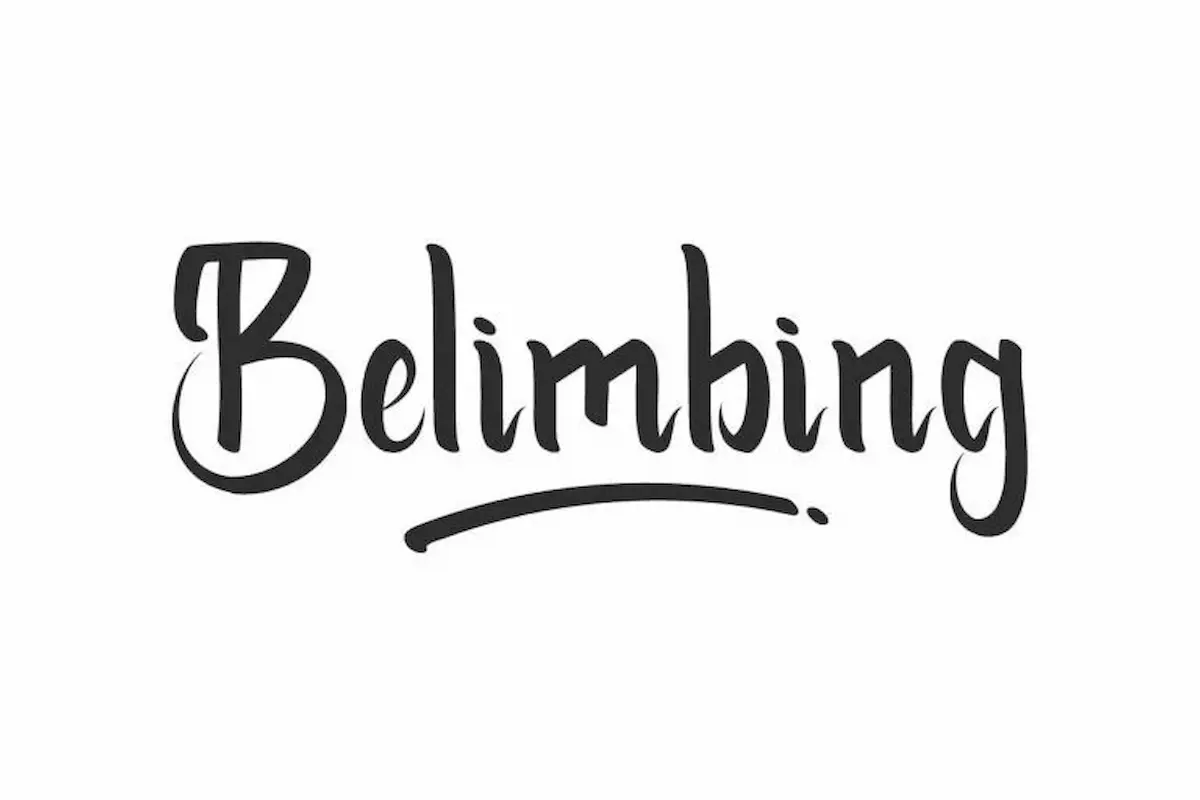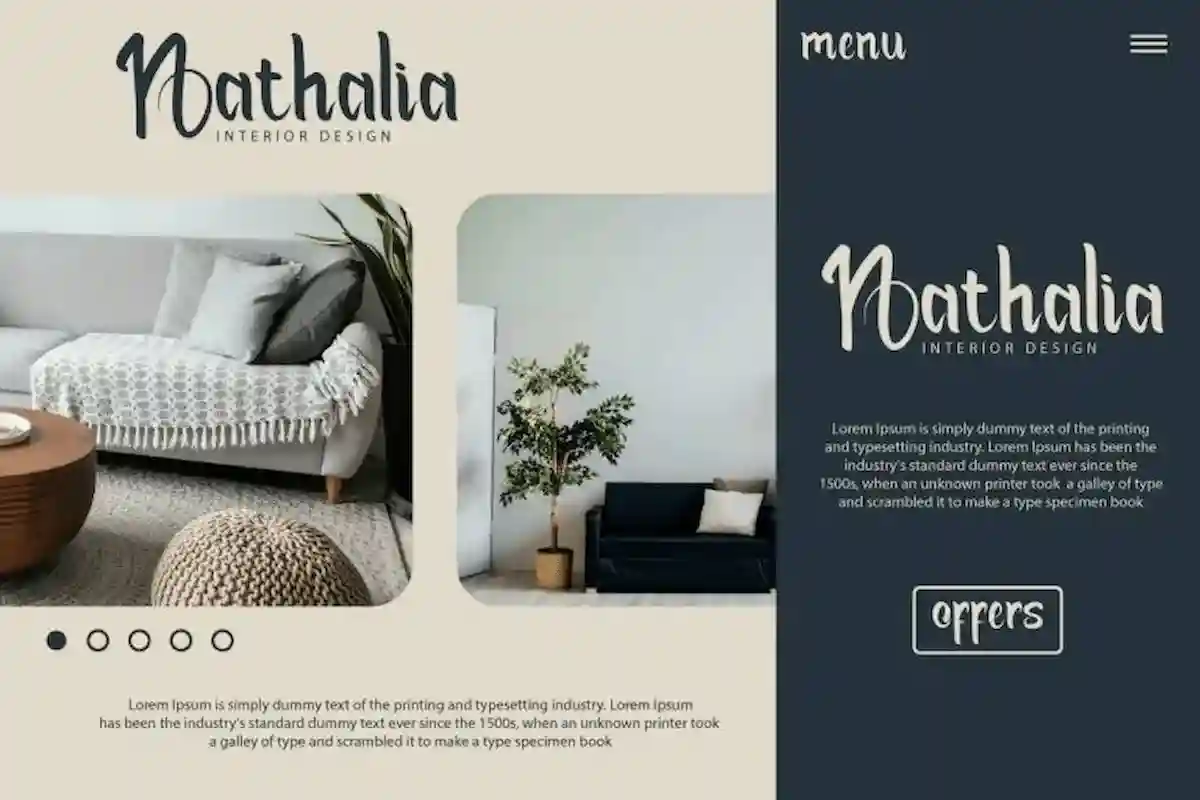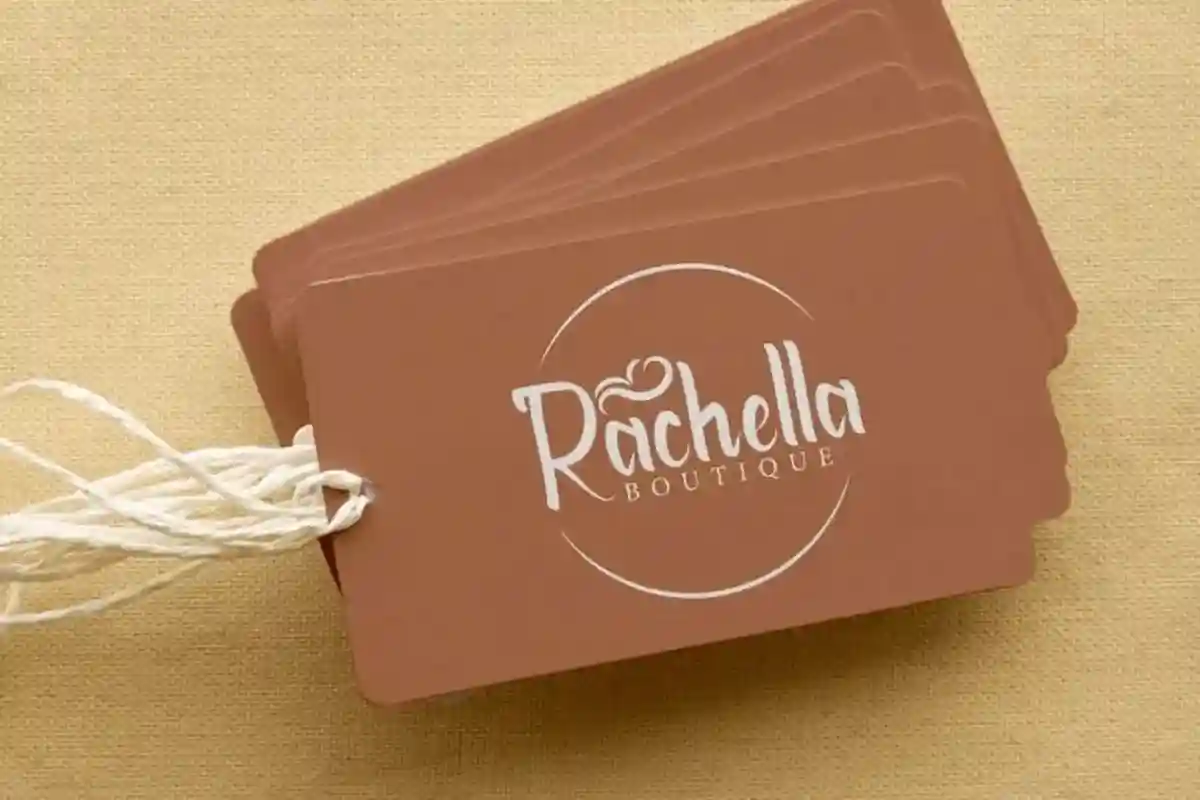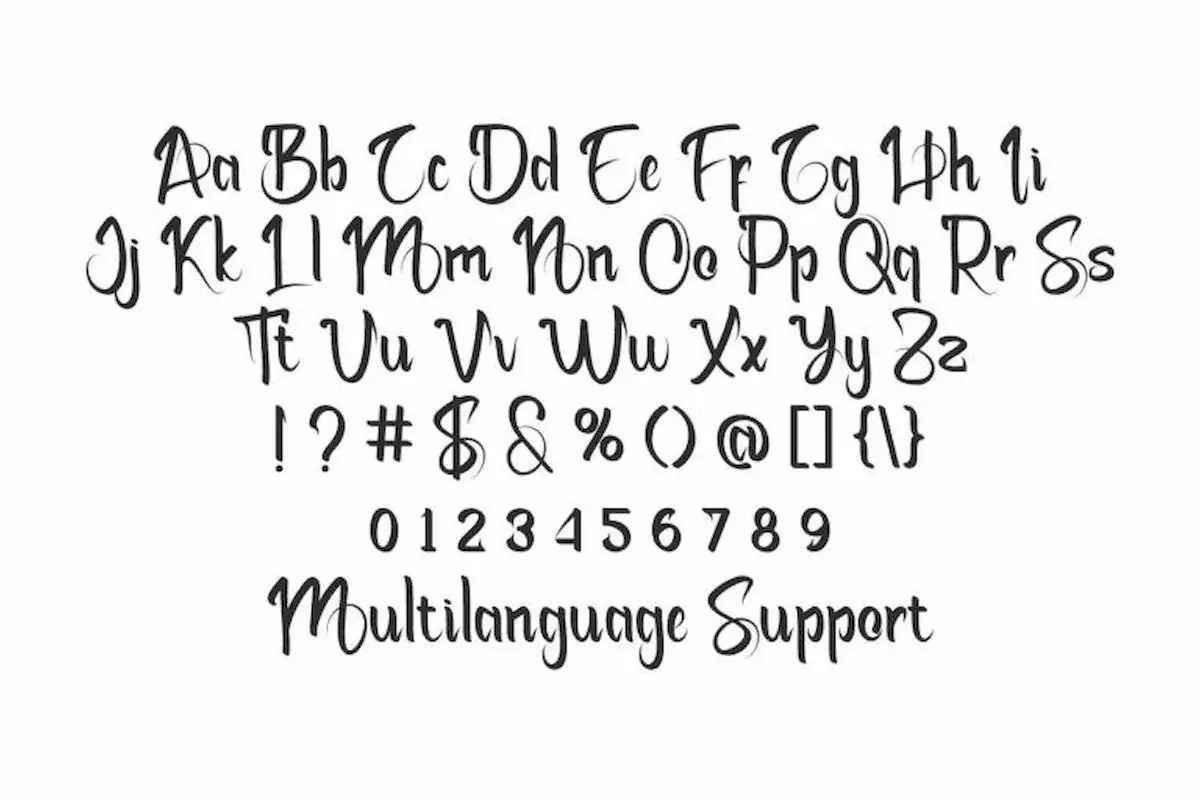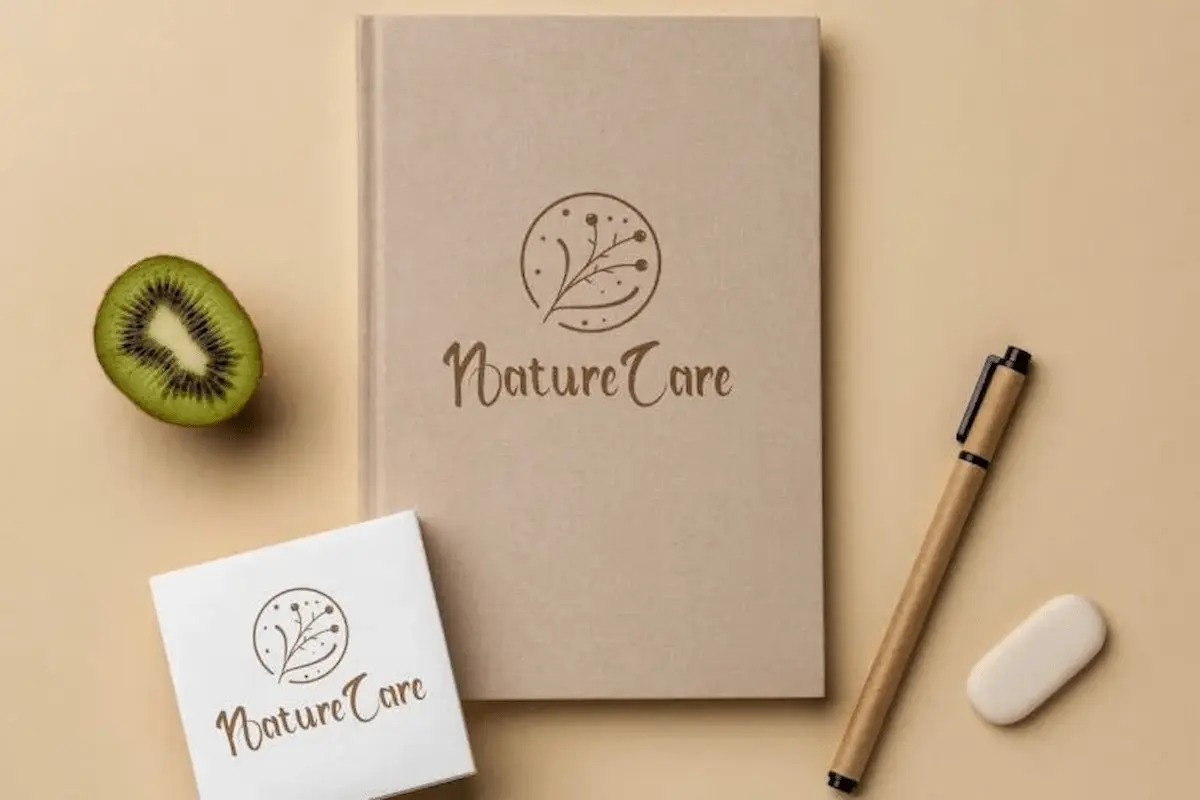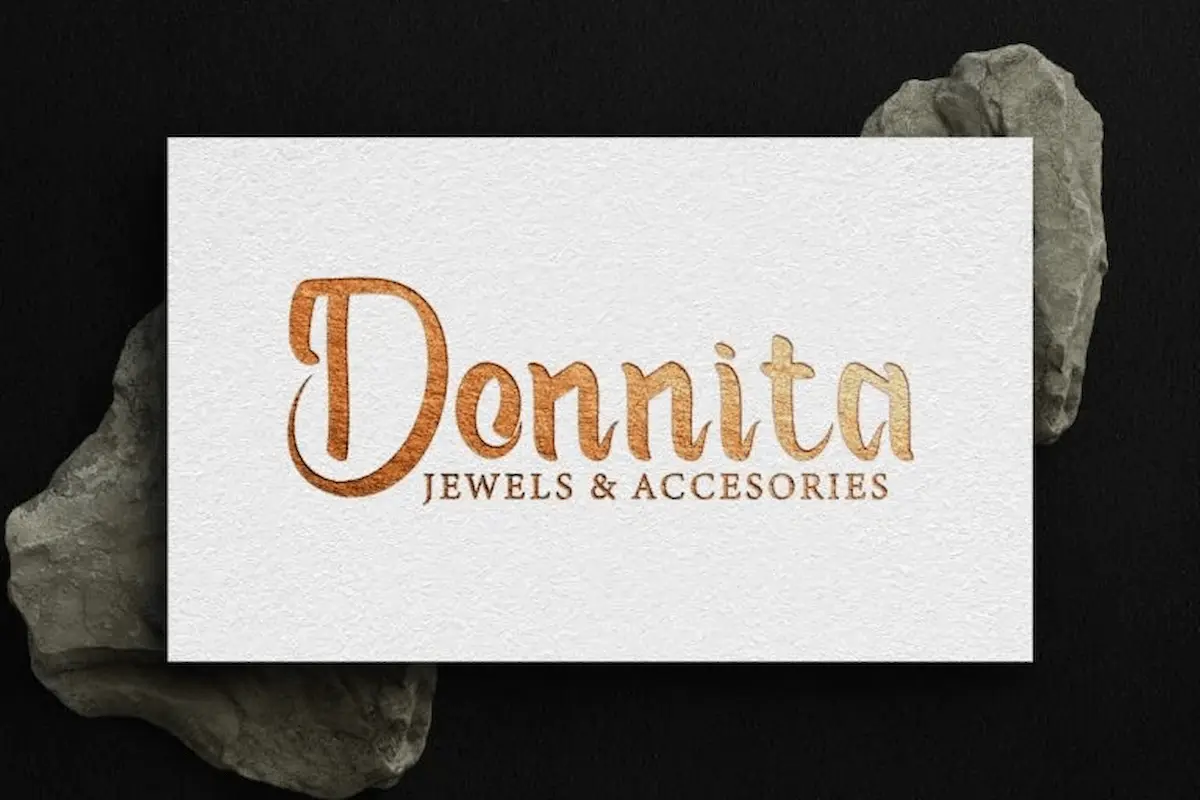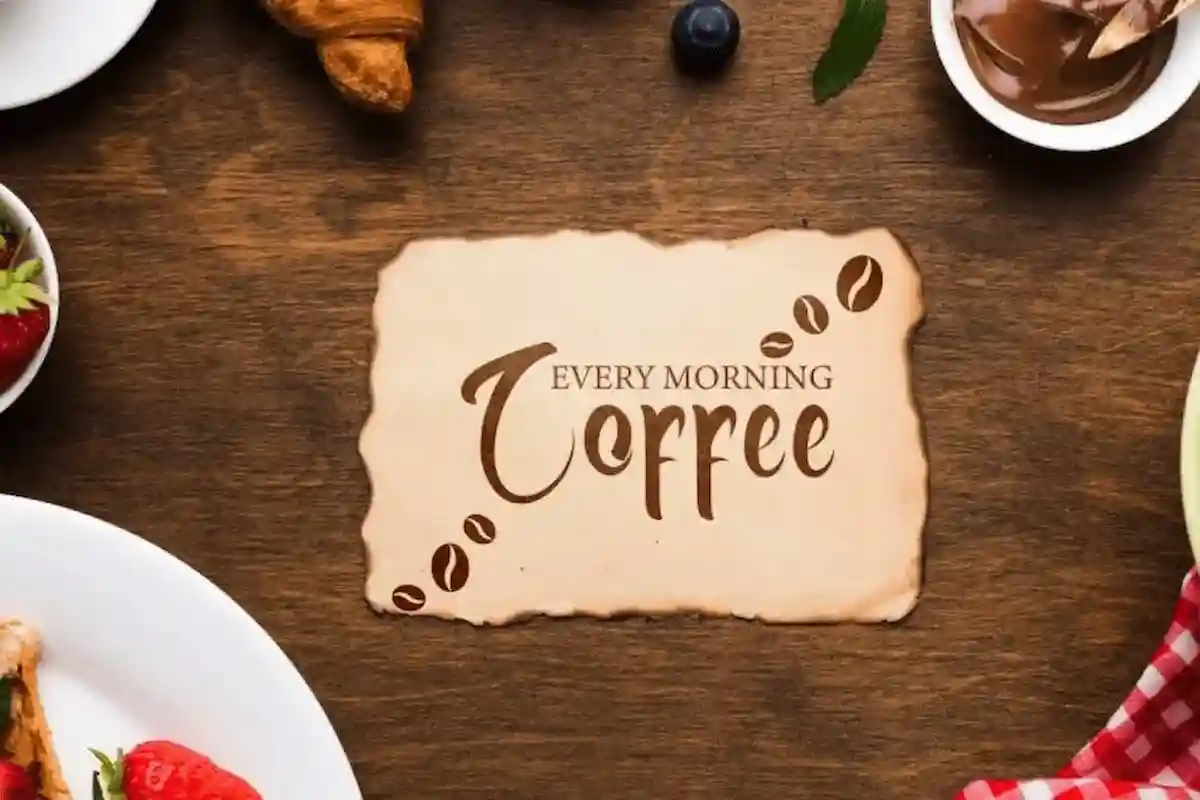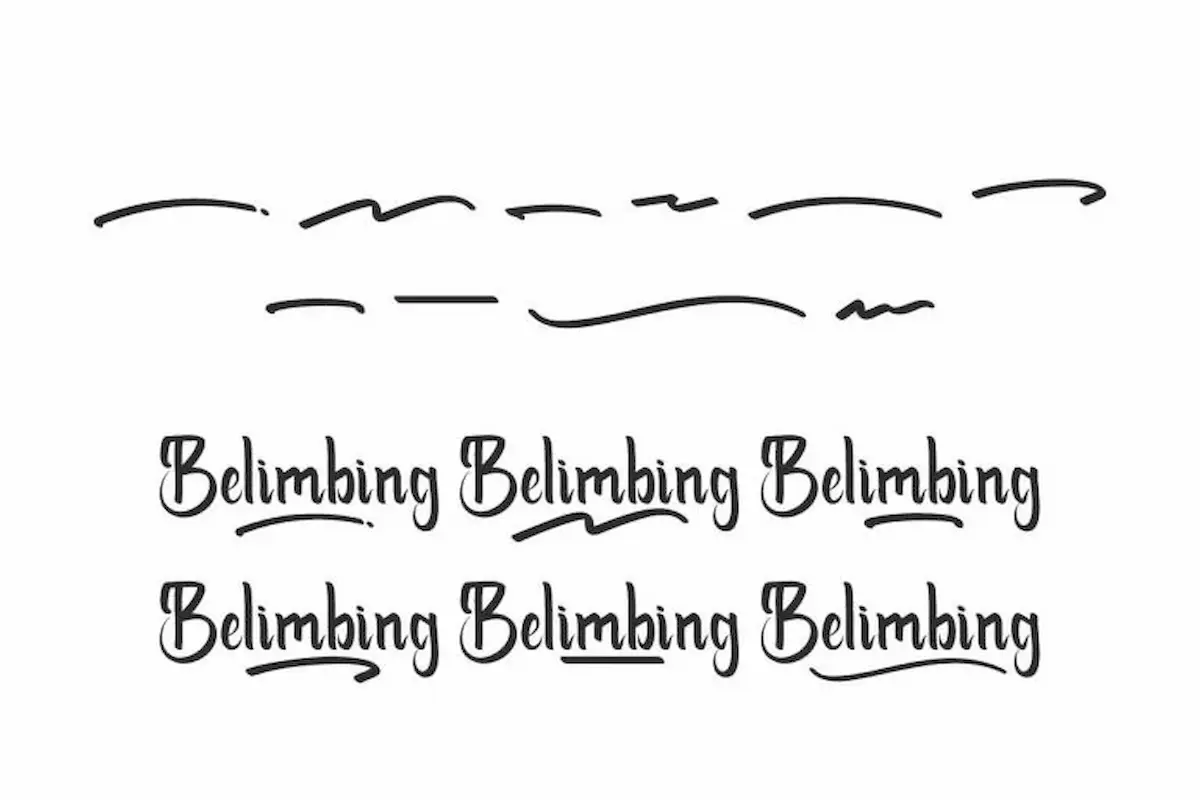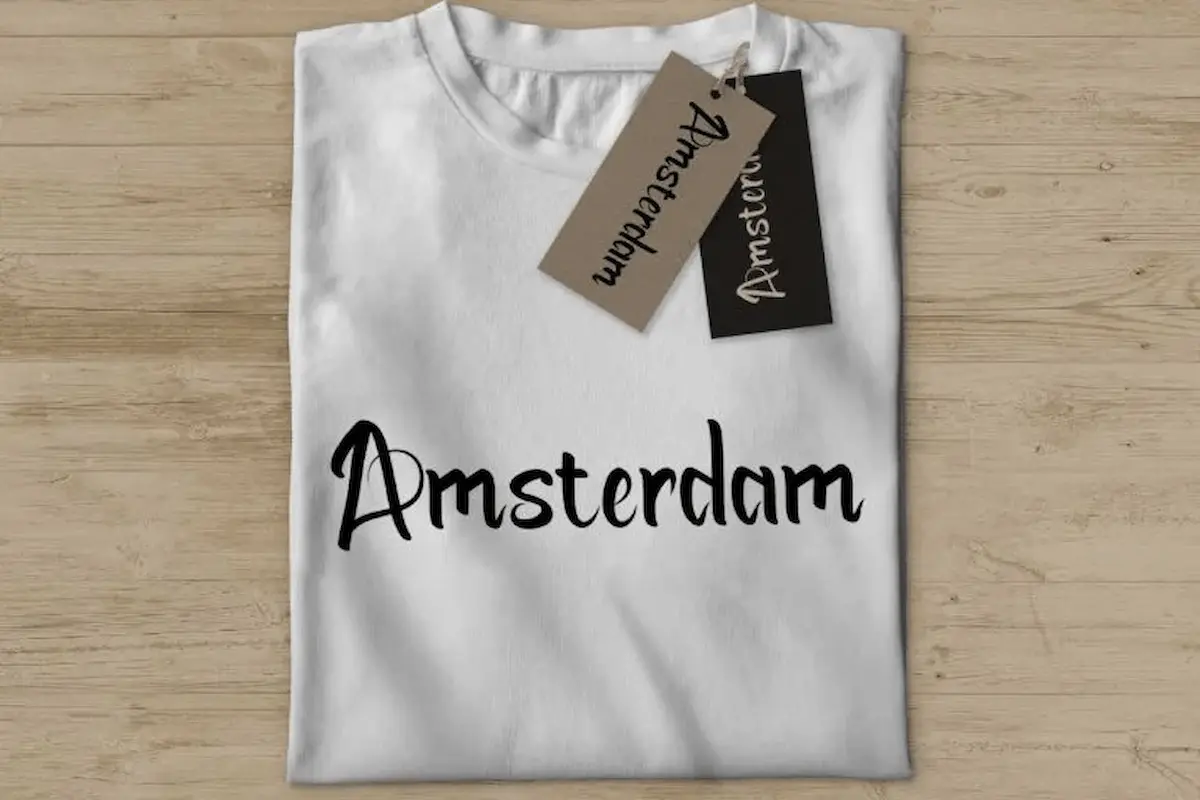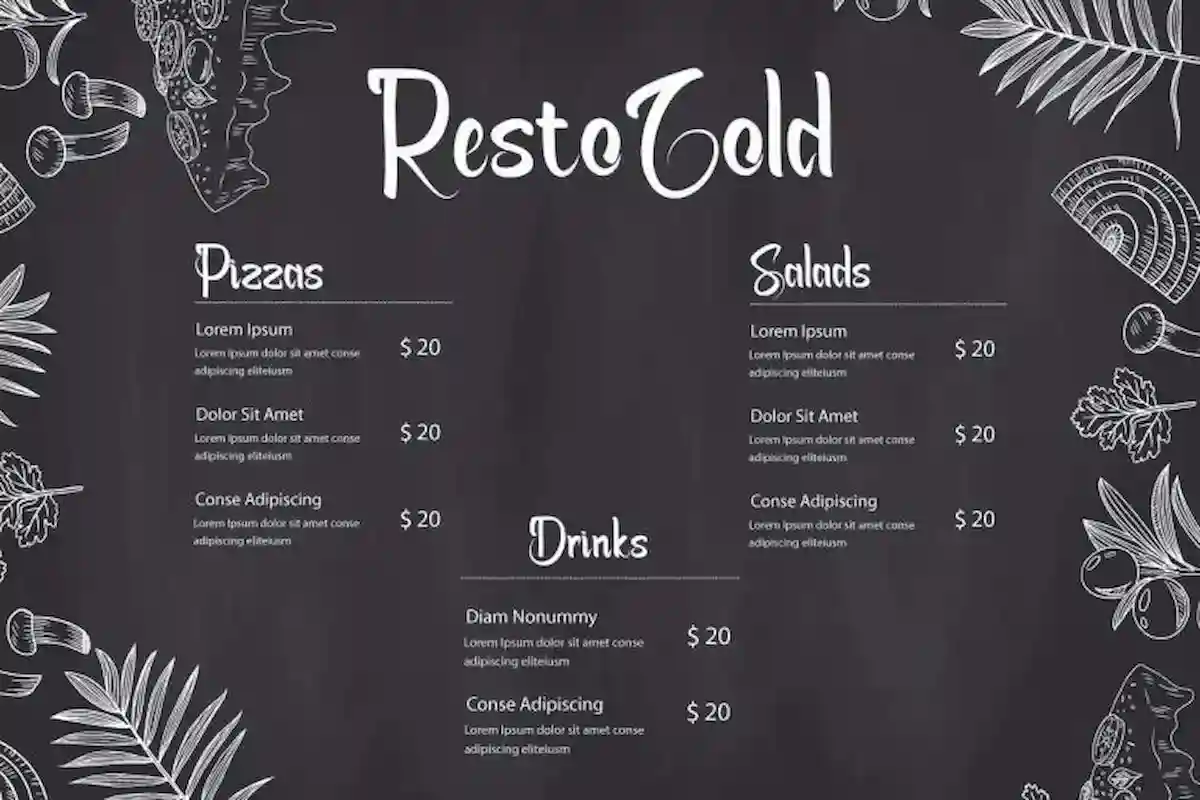
Belimbing Font is a handwriting with brush calligraphy font by NihStudio. Westhampton Font will be great for branding, wedding, professional, video, invitation etc
Belimbing Font is a beautifully crafted brush handwriting script font created by NihStudio in 2021. Designed in Indonesia by our talented designers Shalsa and Suci, this calligraphy font combines the elegance of handwritten strokes with the charm of classic brush lettering, making it a favorite choice for creative professionals.
This handmade brush script font is ideal for a variety of creative applications, including branding, logos, product packaging, stationery, wedding invitations, signage, business cards, flyers, brochures, social media posts, and more. The theme blends elegance, vintage appeal, casual charm, and sophisticated brush artistry, making it perfect for wedding organizers, florists, gardeners, makeup artists, travel agencies, hotels, musicians, and lifestyle brands.